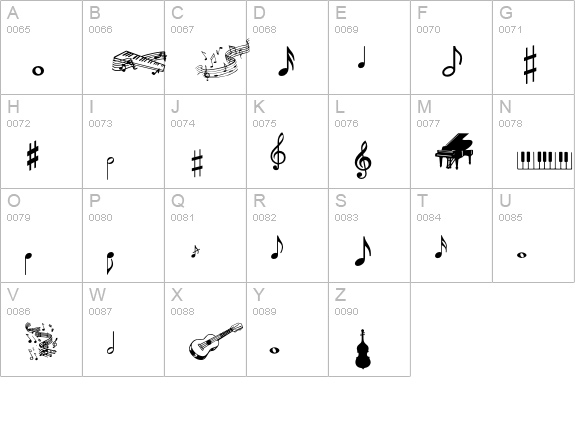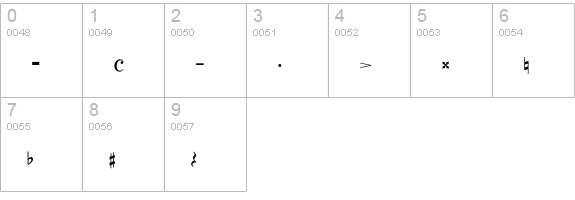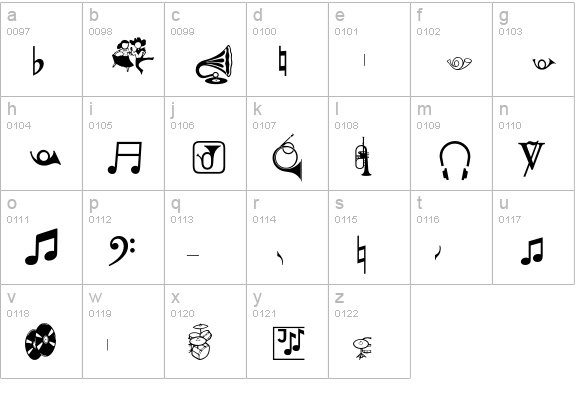
MusicalP01 Font Details
MusicalP01 font is a beautifully crafted typeface that exudes elegance and sophistication. Its intricate design features flowing lines and graceful curves that evoke a sense of musical harmony and rhythm. This versatile font is perfect for adding a touch of artistry to your projects, whether you're designing invitations, posters, or branding materials. The best part? MusicalP01 font is available for free download at FontsMarket.com! Embrace the beauty of this unique typeface and elevate your designs with its timeless appeal. Unlock your creativity and bring your ideas to life with MusicalP01 font, the perfect choice for all your artistic endeavors.